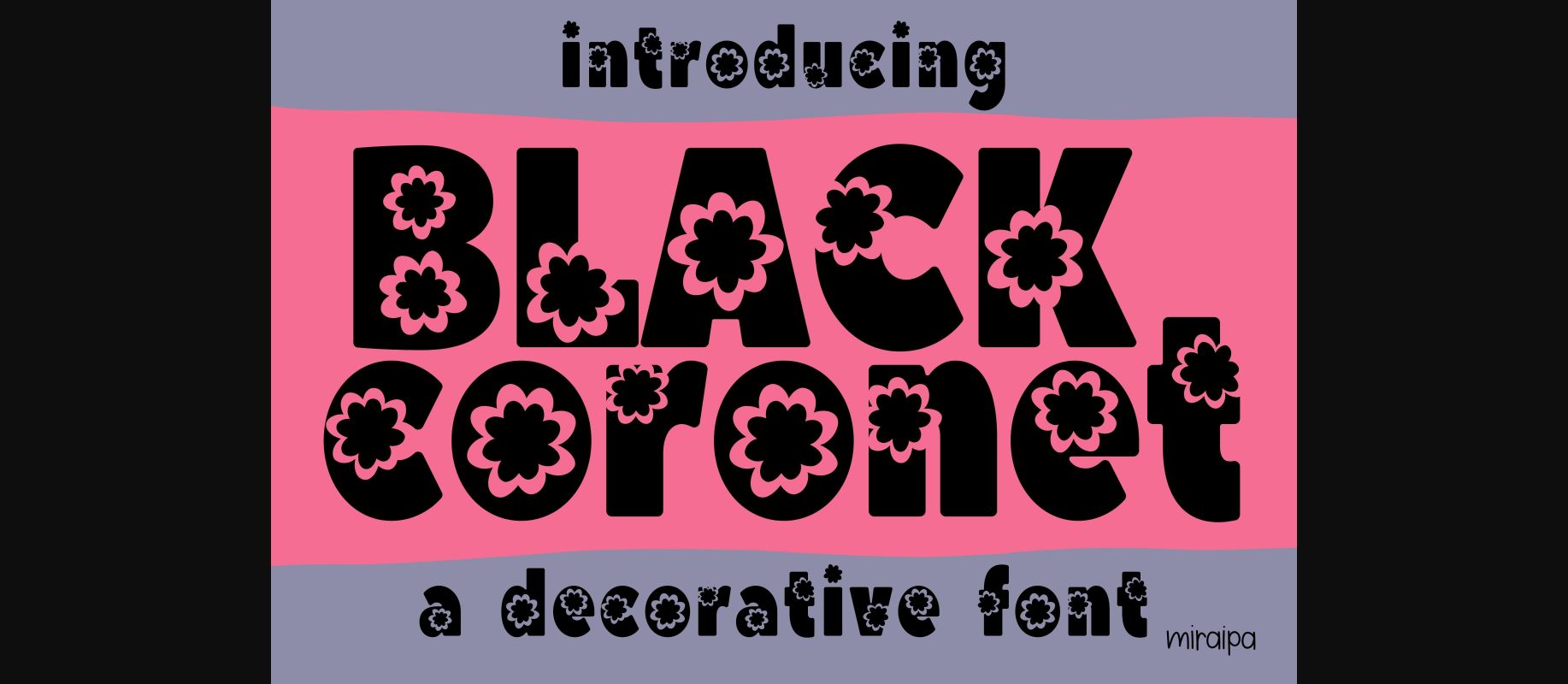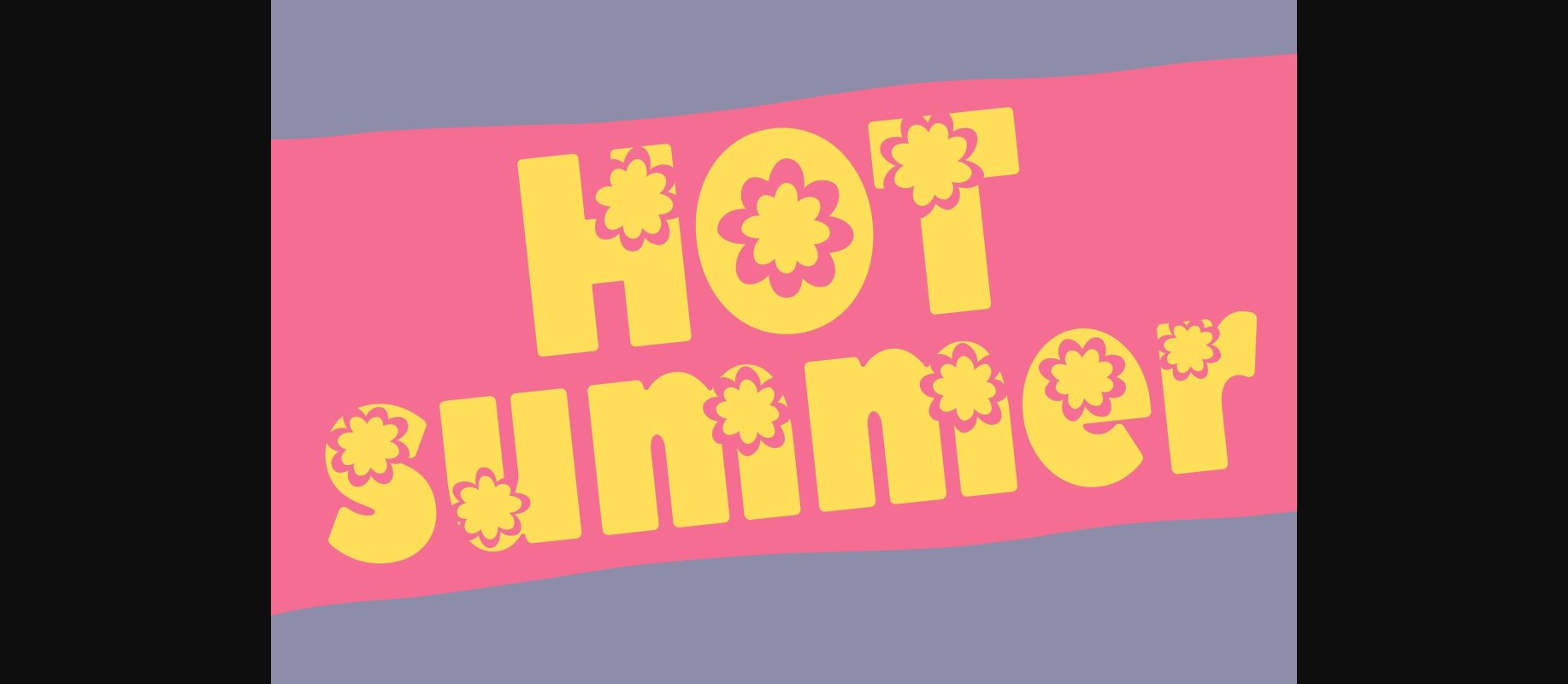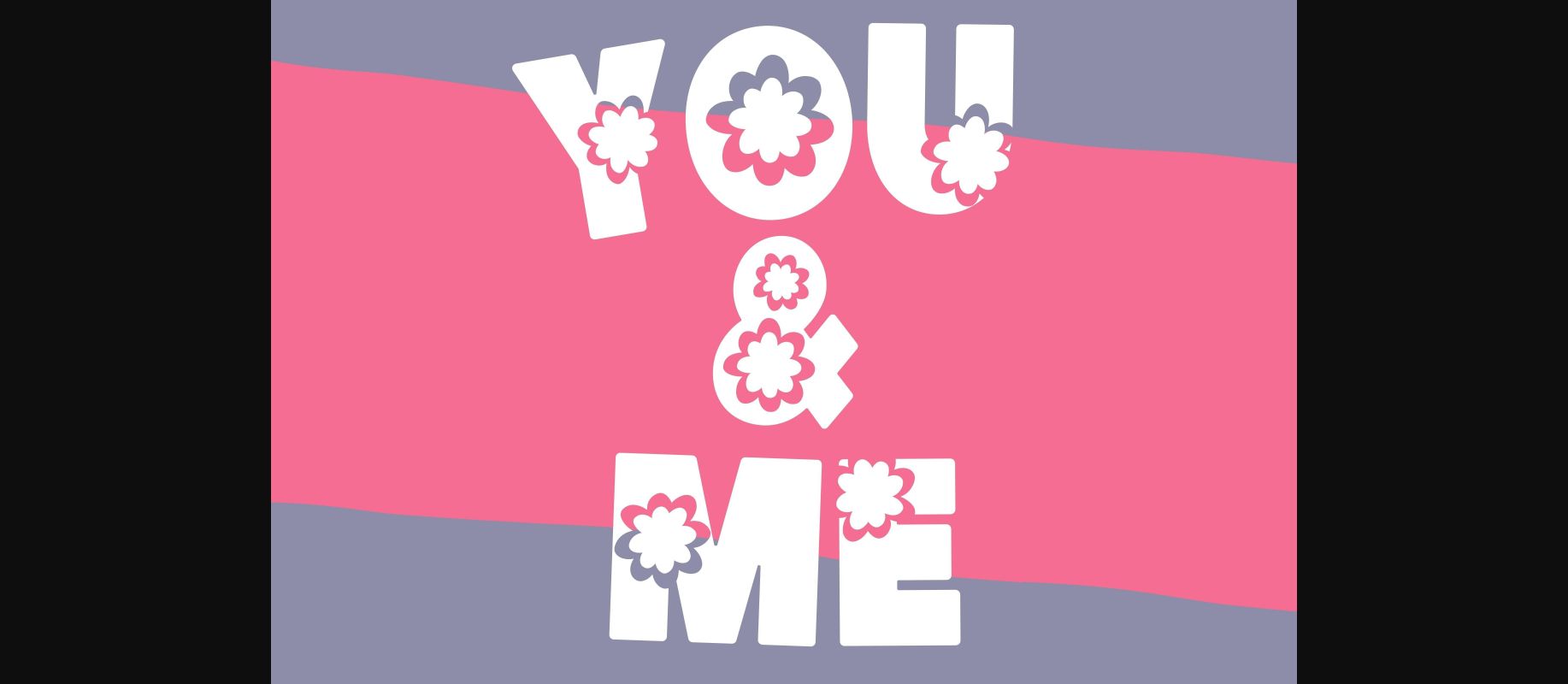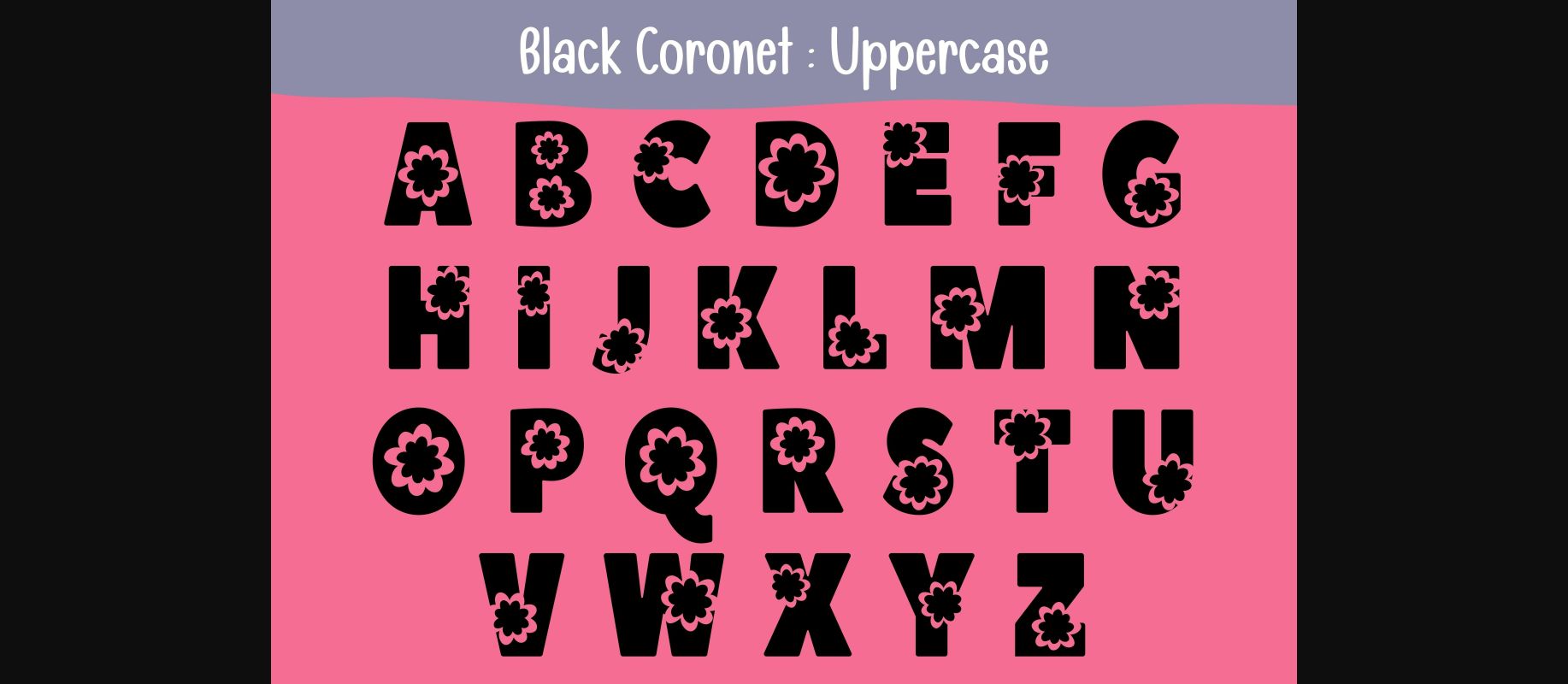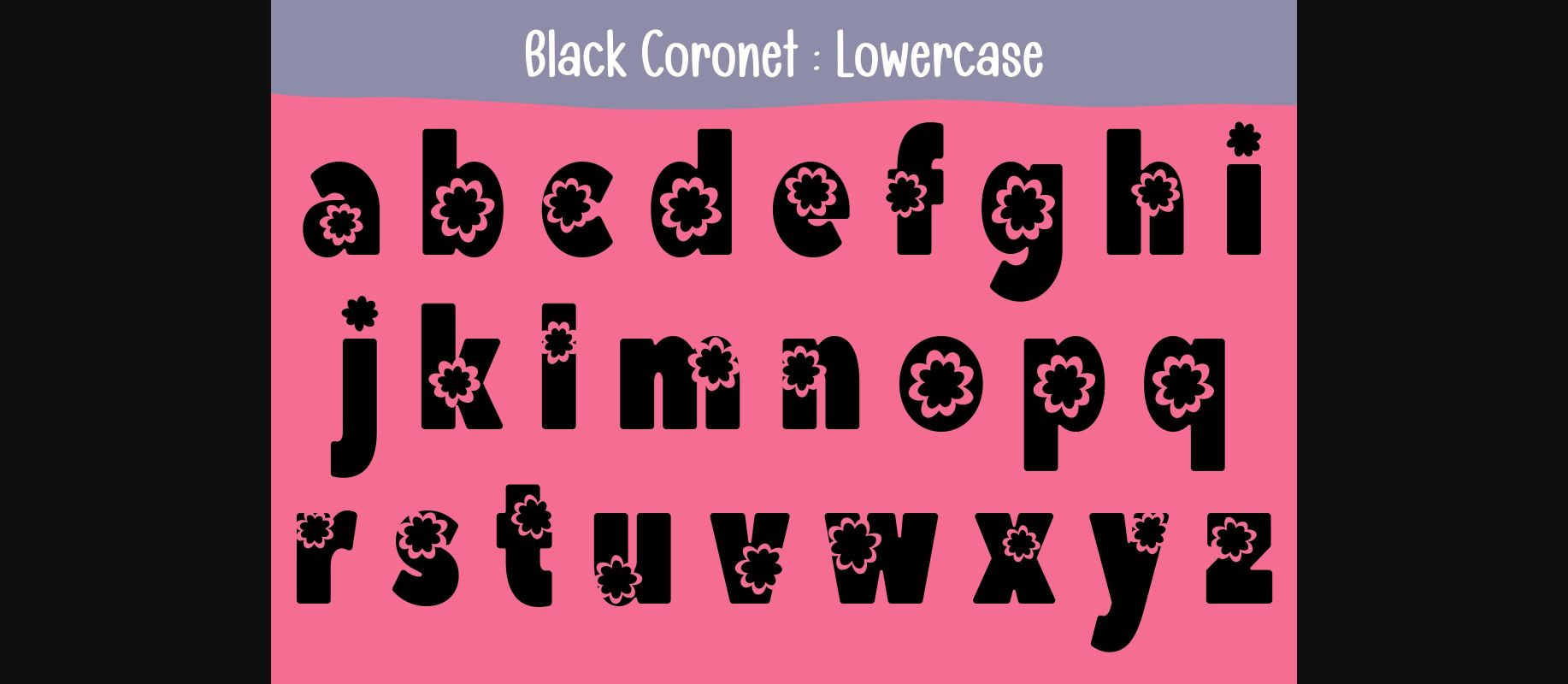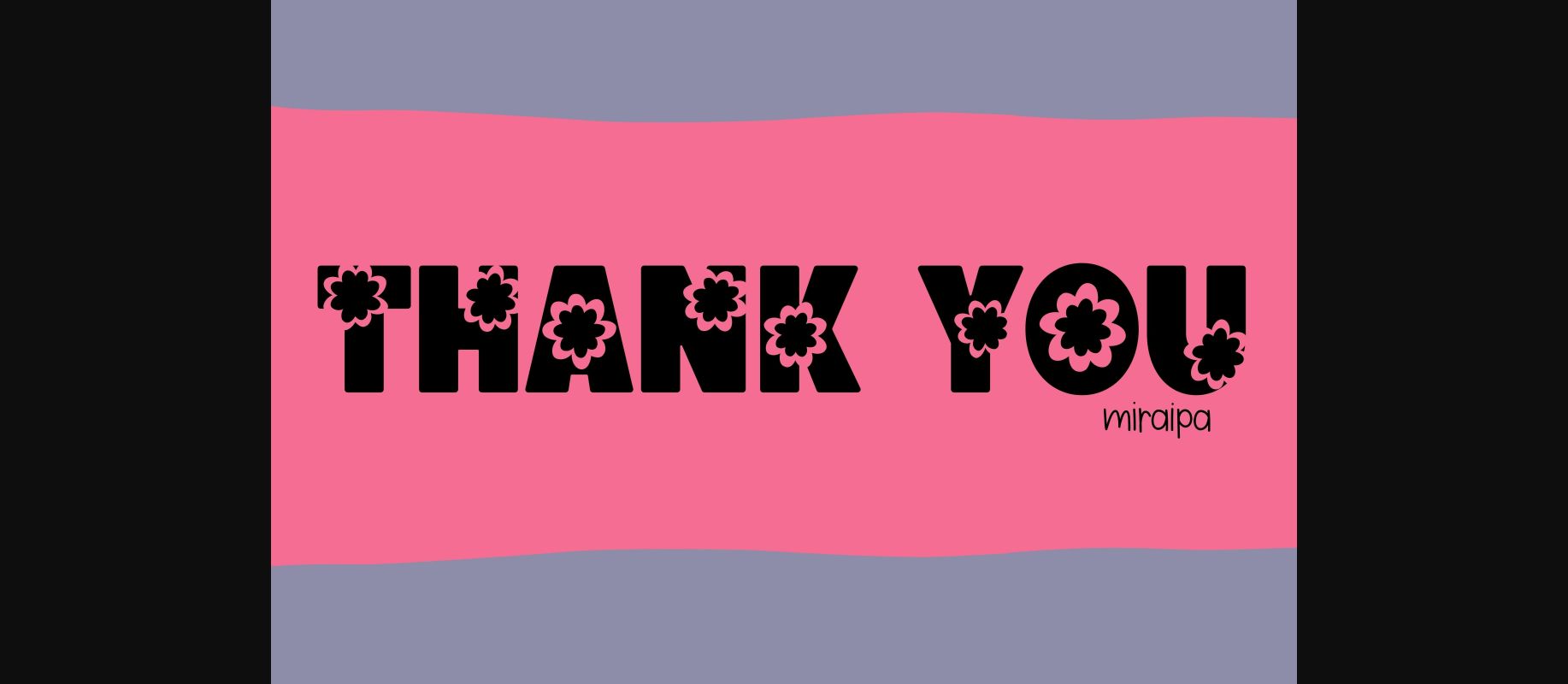
Black Coronet Font
About Black Coronet Font
Black Coronet is a cute and lovely decorative font. No matter the topic, this font will be an incredible asset to your fonts’ library, as it has the potential to elevate any creation.